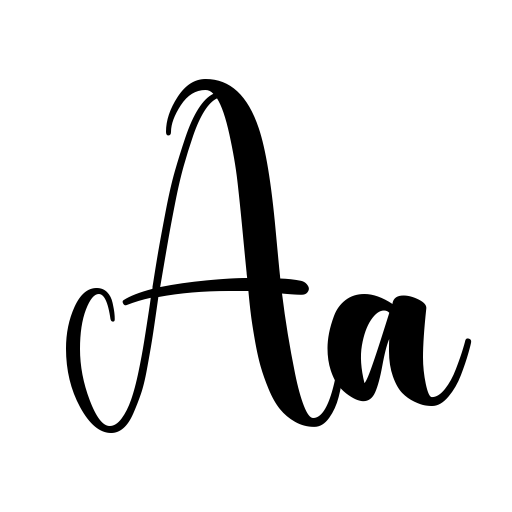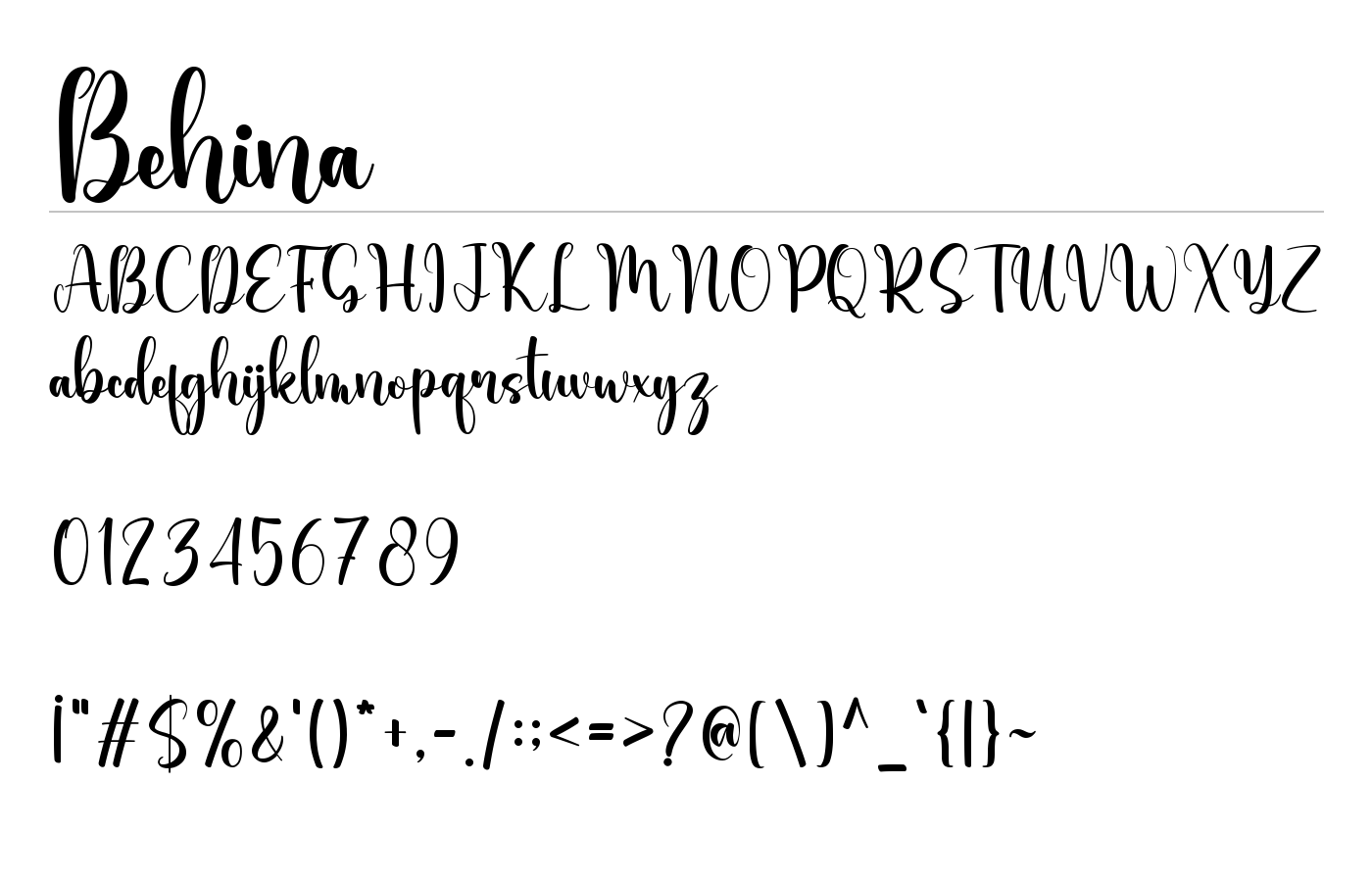
Behina is a charming script font featuring elegant, flowing letterforms with a lively, handcrafted feel. Its smooth curves and moderate contrast make it perfect for projects that want to convey a friendly yet stylish personality, suited well for invitations, branding, and decorative headlines. This font’s playful yet refined style adds a personal touch to any design needing warmth and sophistication.
Behina Font
About Behina Font
| Font family | Behina Font |
| Designer | Risma Ramawi |